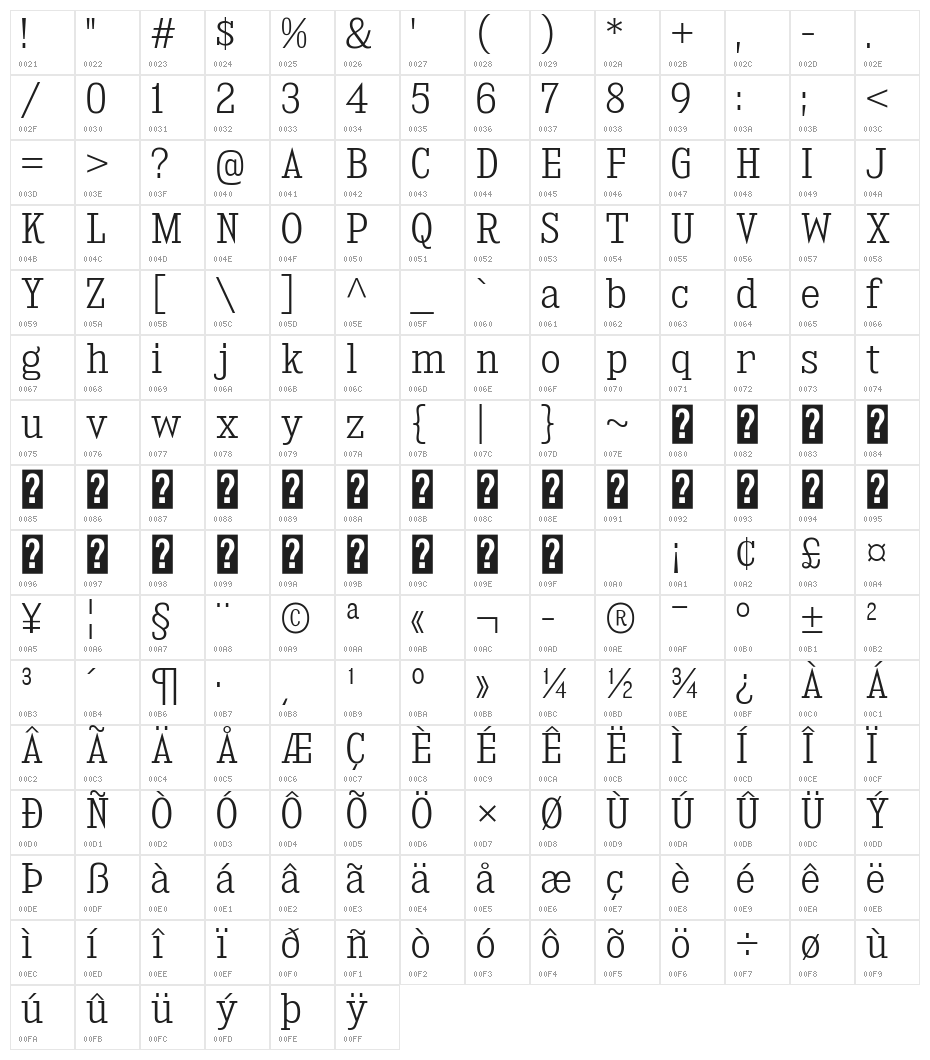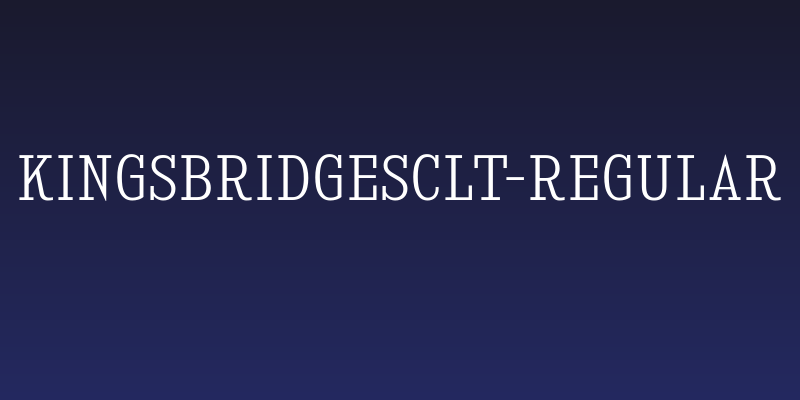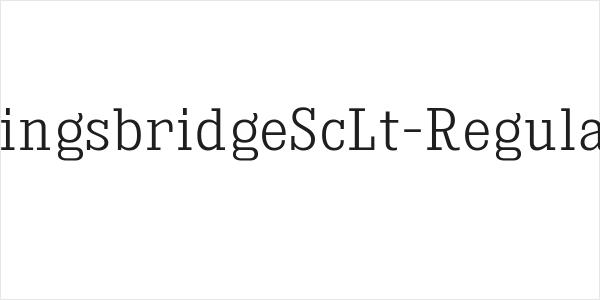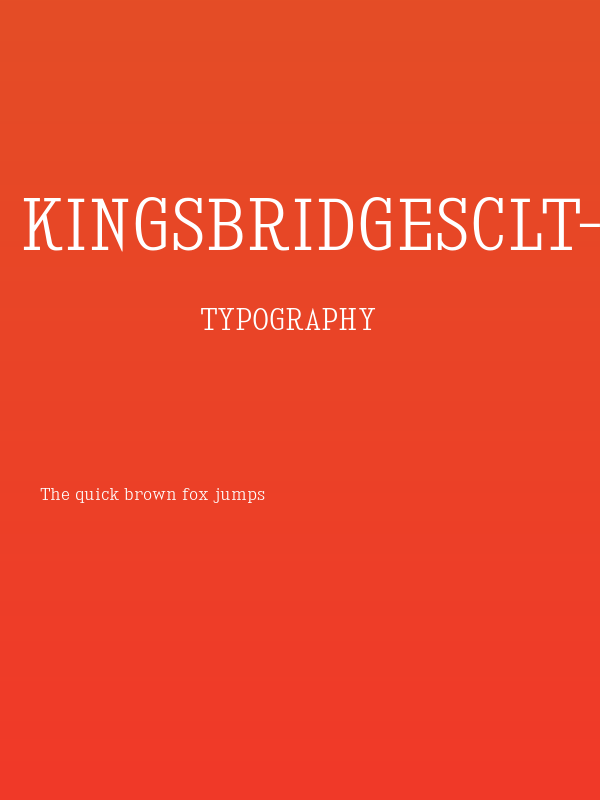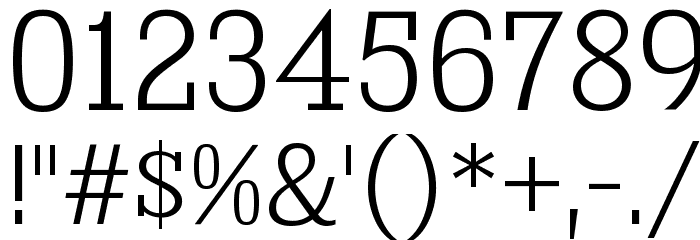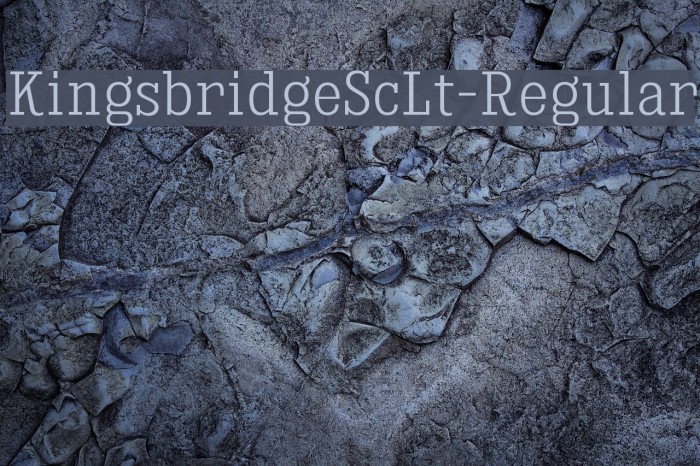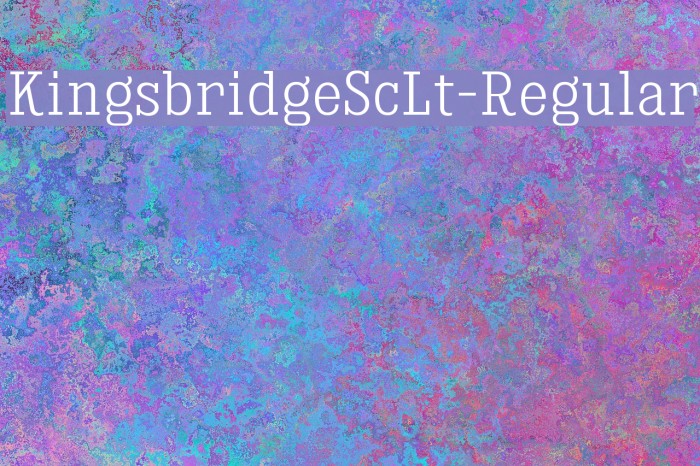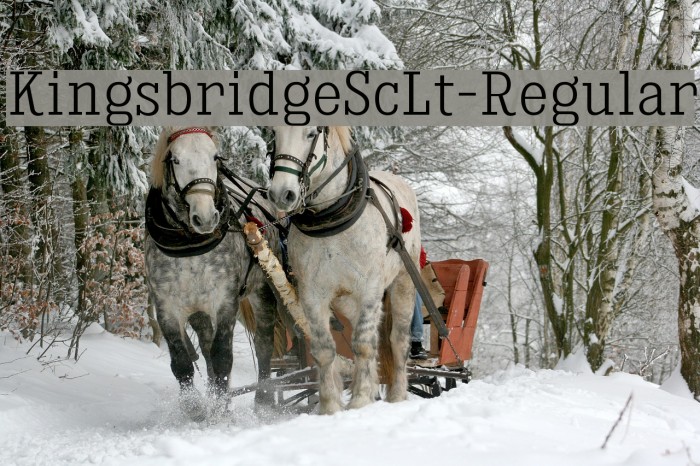
KingsbridgeScLt-Regular Font
KingsbridgeScLt-Regular Description
This font features a classic serif style with a modern twist, characterized by its clean lines and elegant curves. The uppercase letters are tall and commanding, while the lowercase letters maintain a balanced and readable form. The numerals are distinct and well-proportioned, ensuring clarity in numerical data presentation. Special characters are crafted with precision, adding to the font's versatility. The overall design is sophisticated, making it suitable for a variety of applications where a touch of elegance is desired.
| Proposed Projects | Ideal for editorial design, book covers, formal invitations, and branding projects that require a touch of sophistication. |